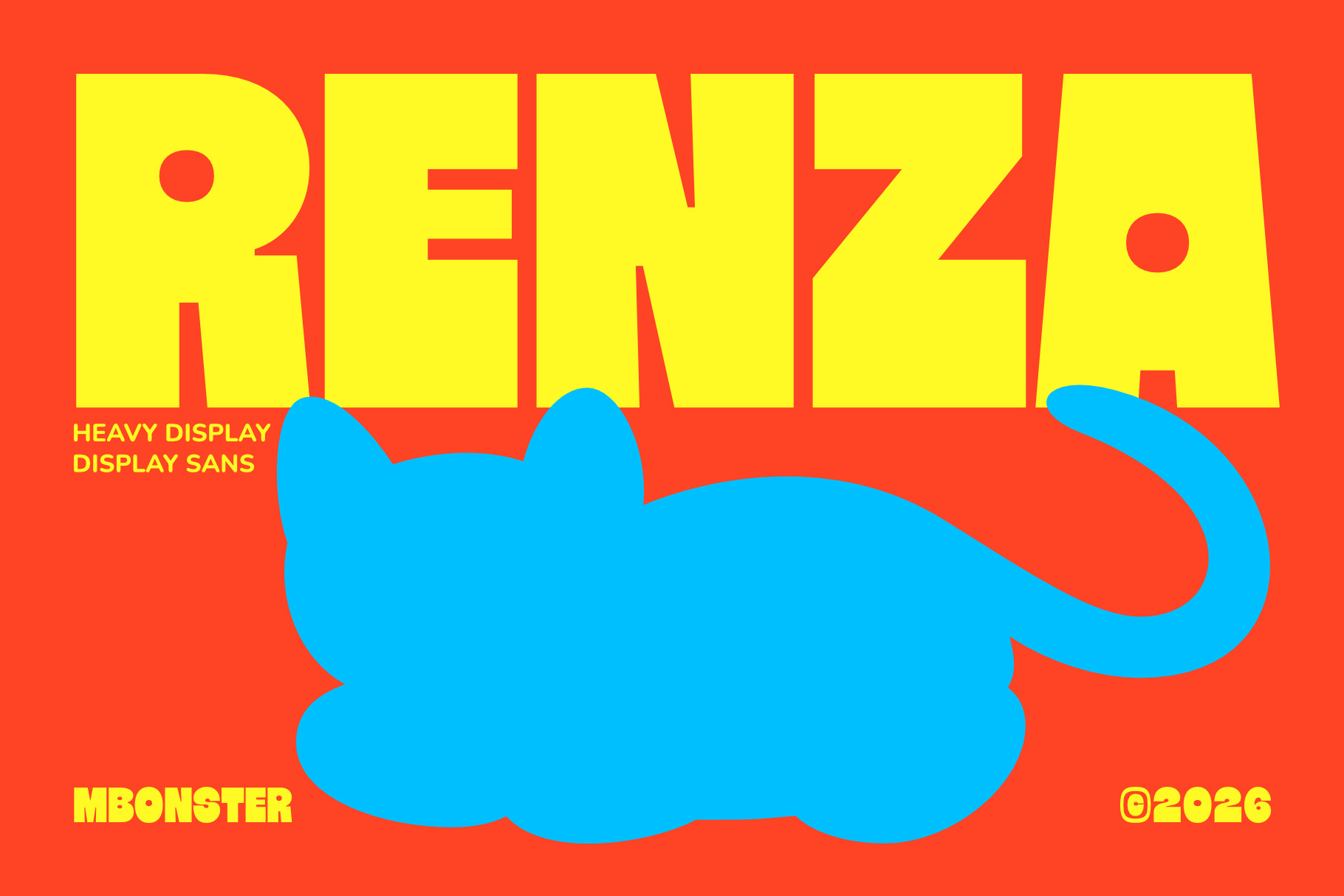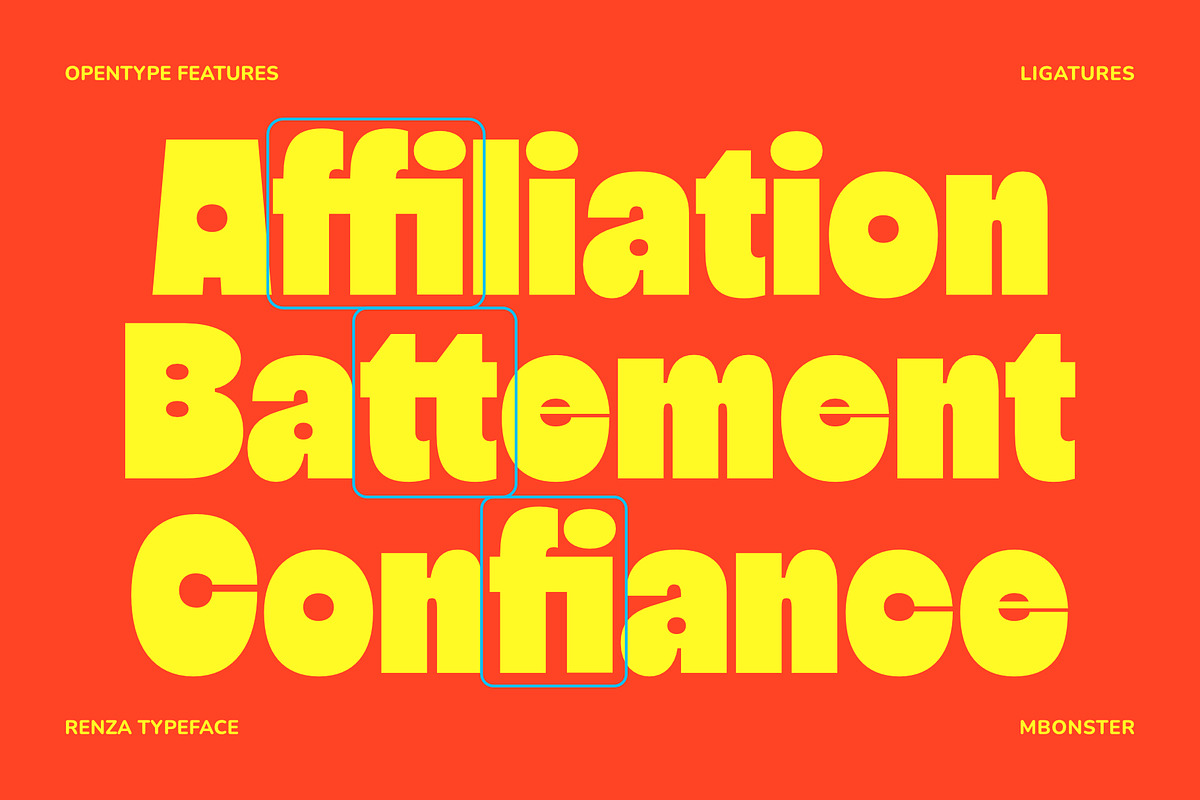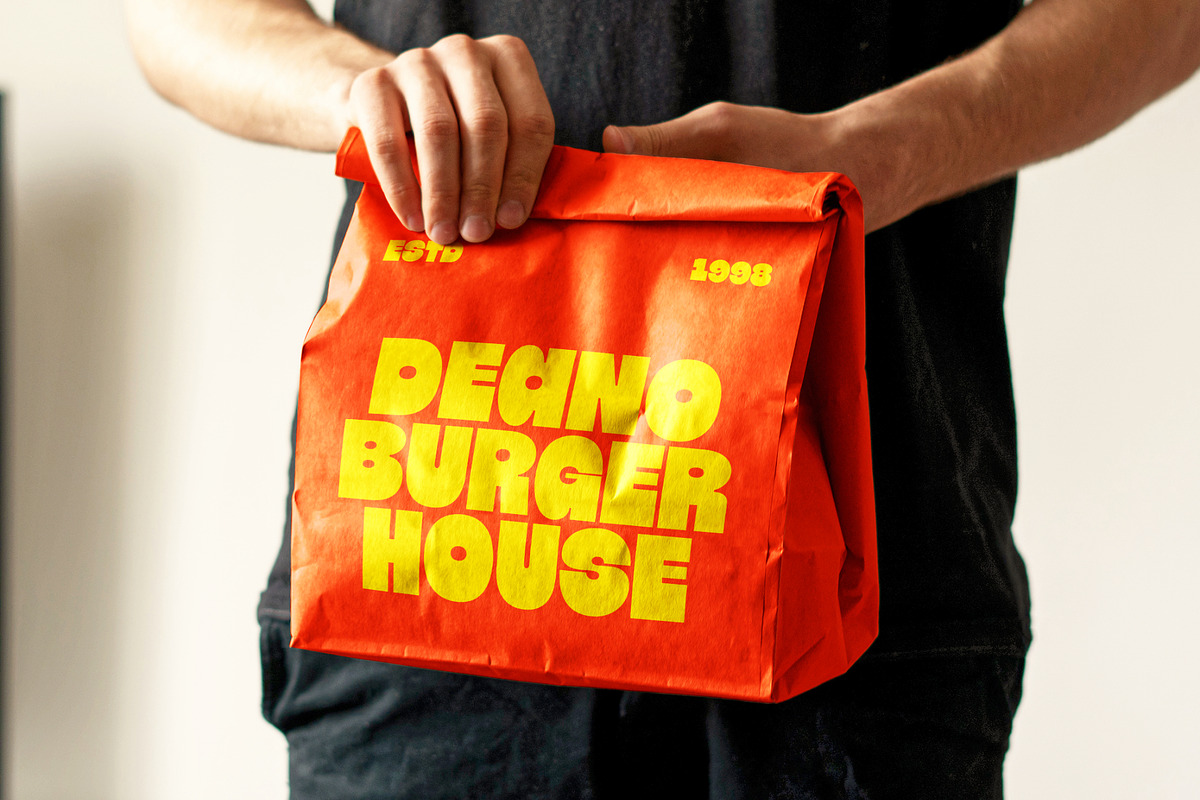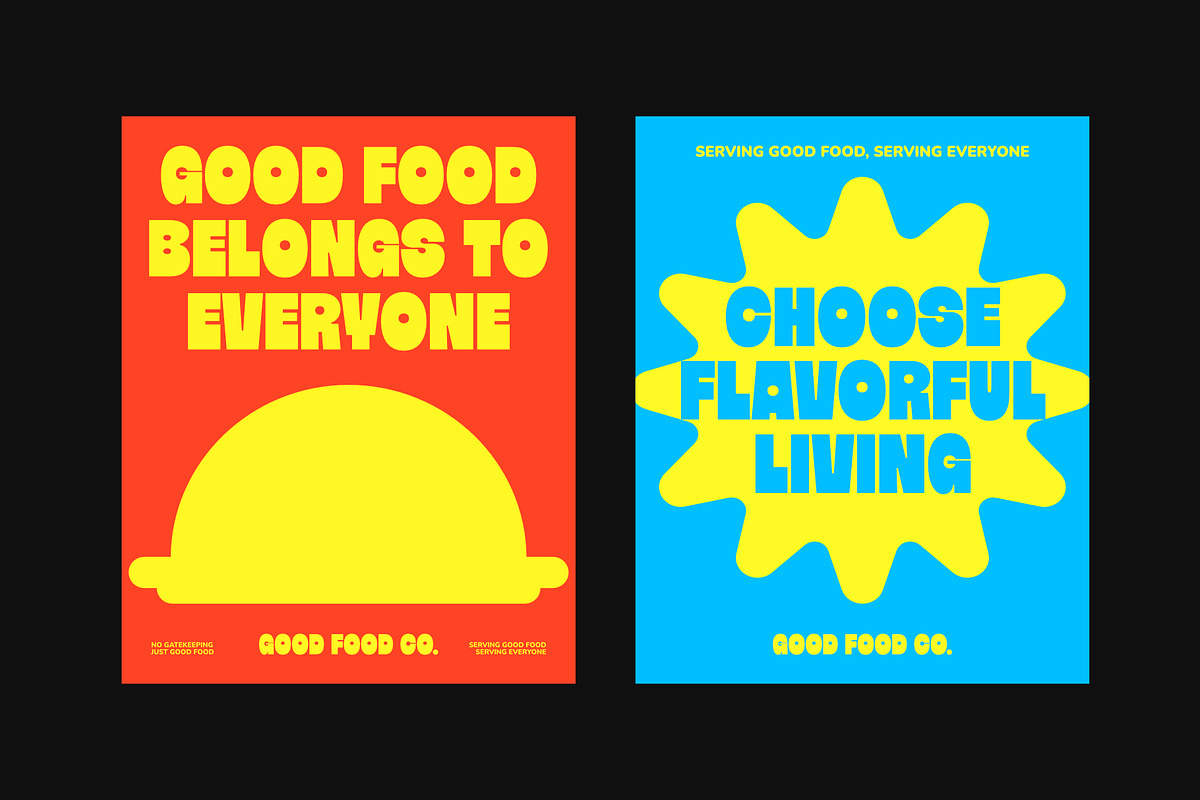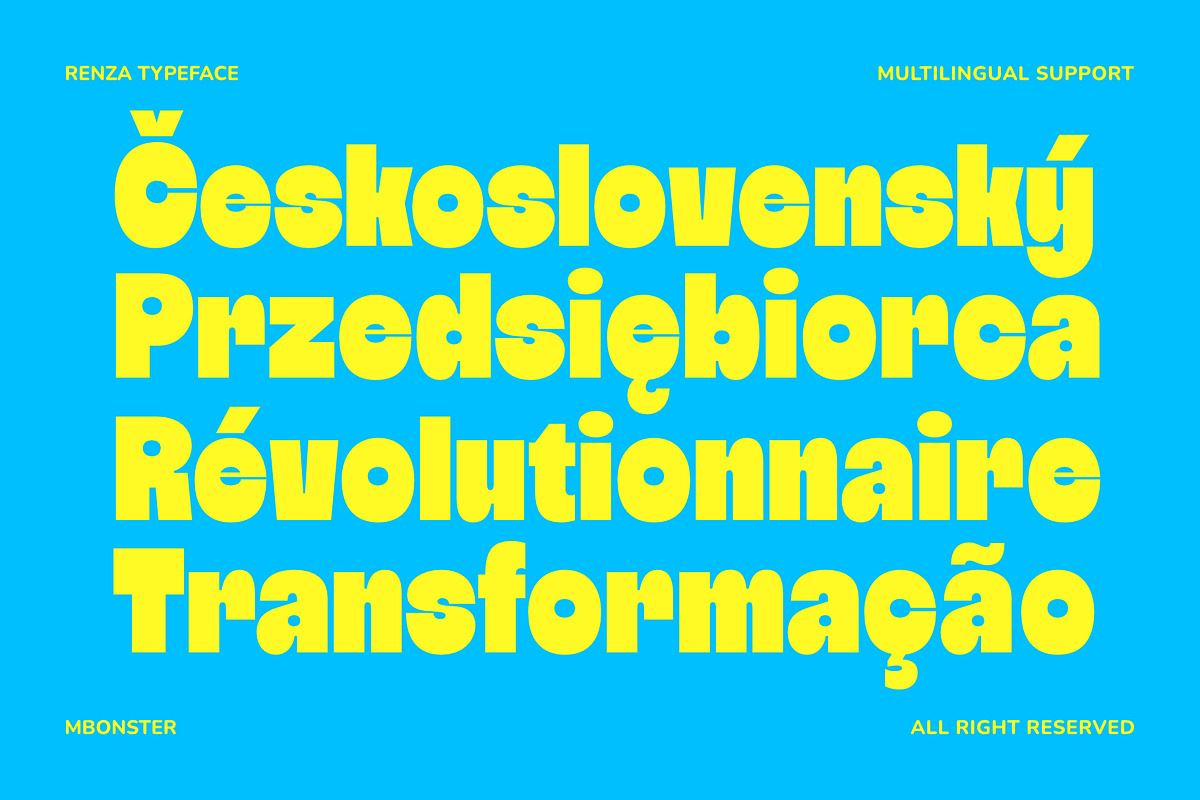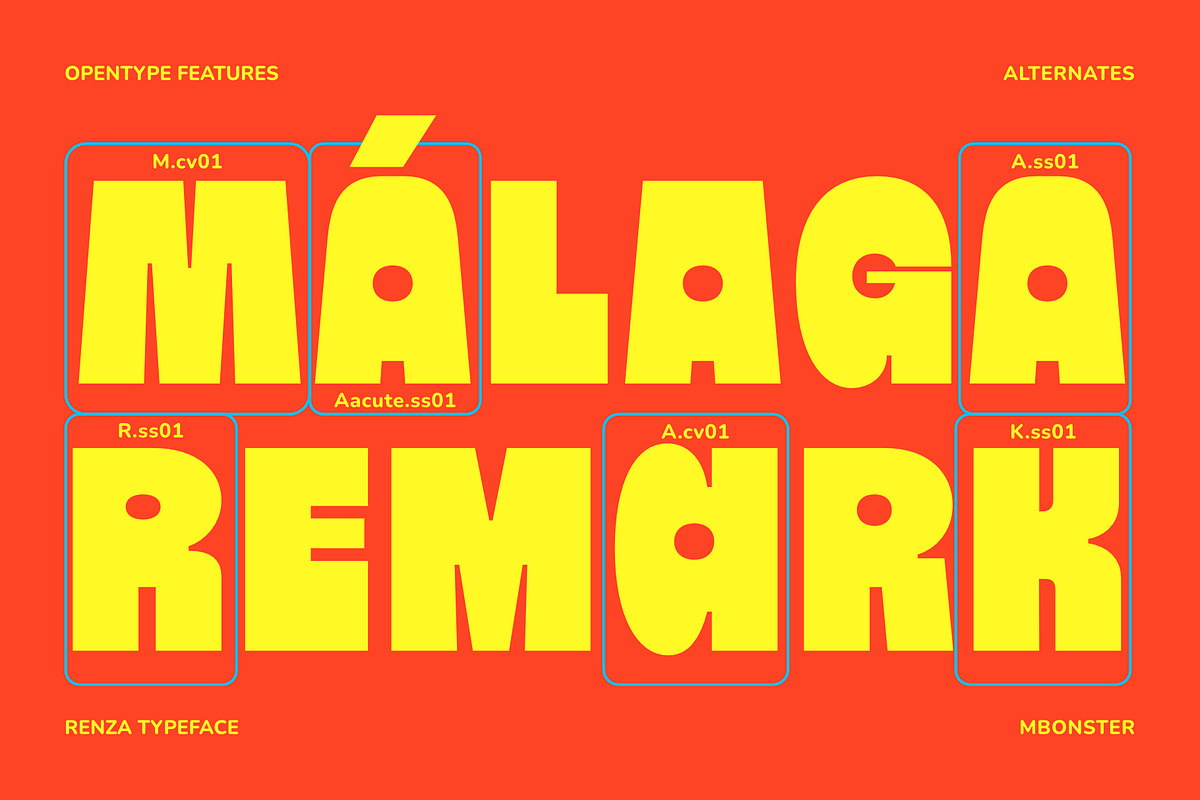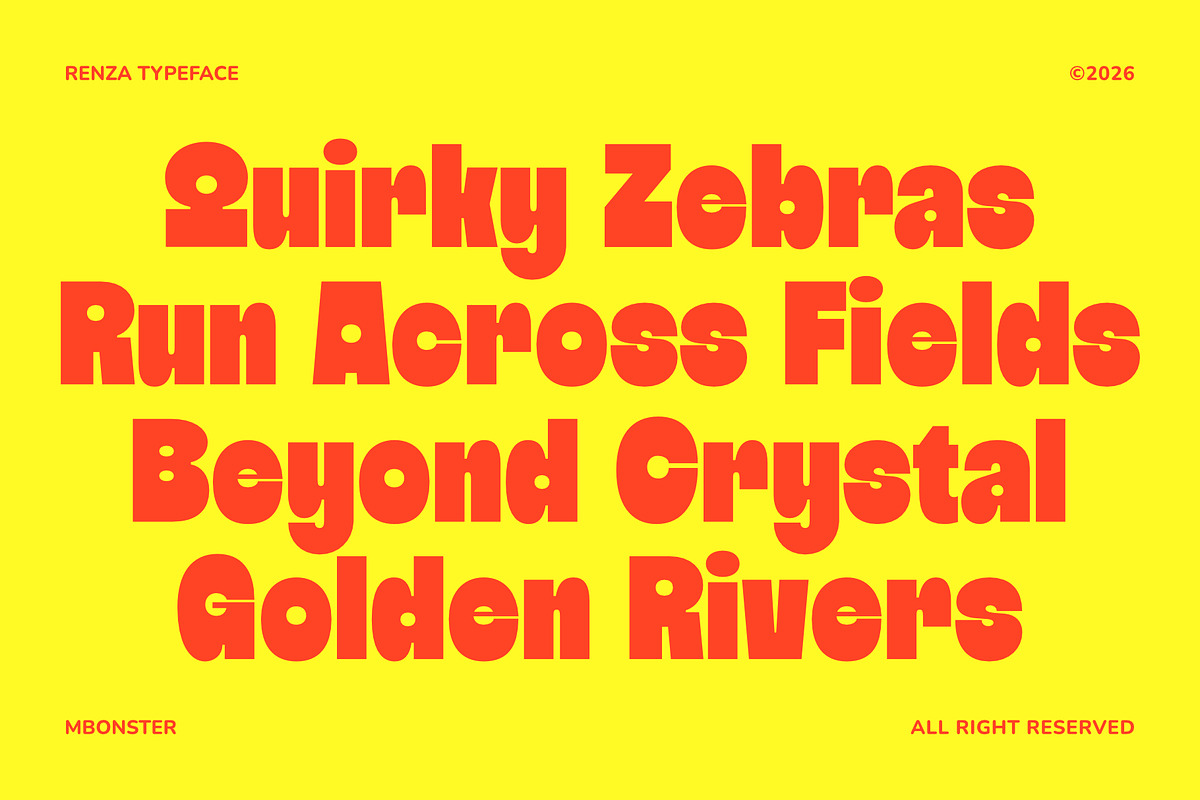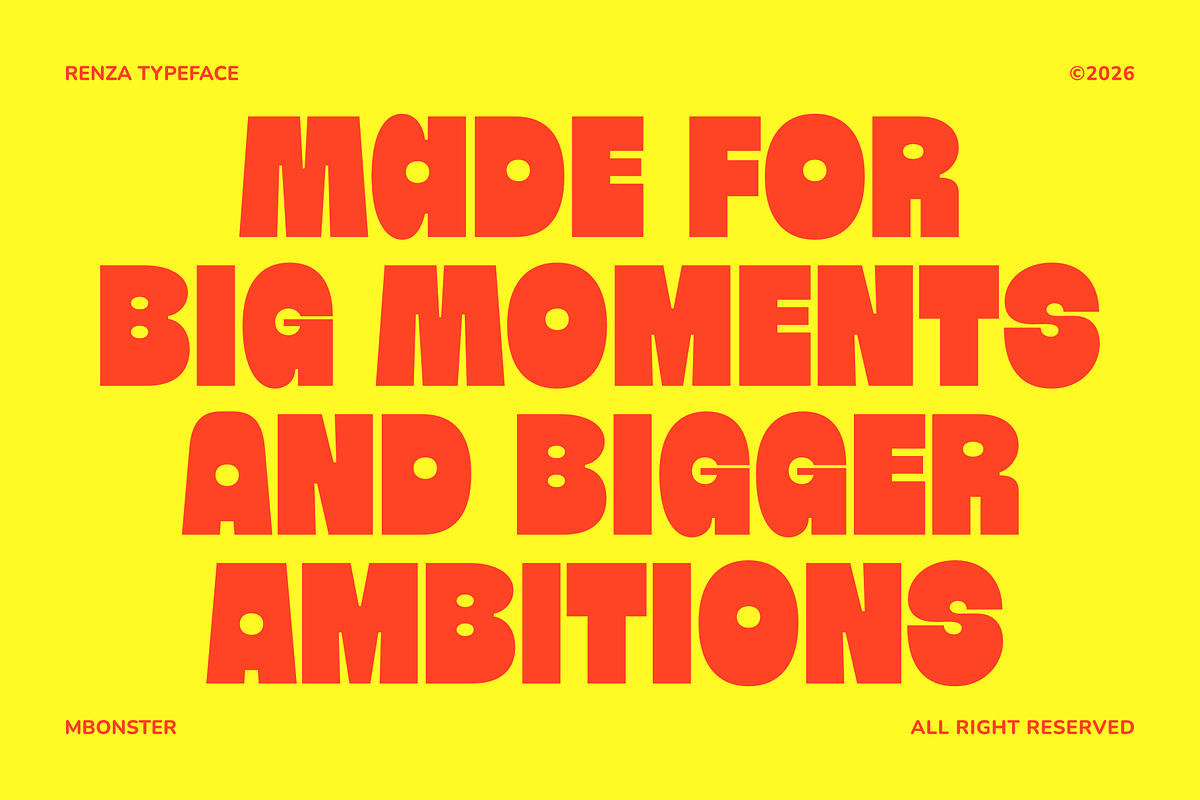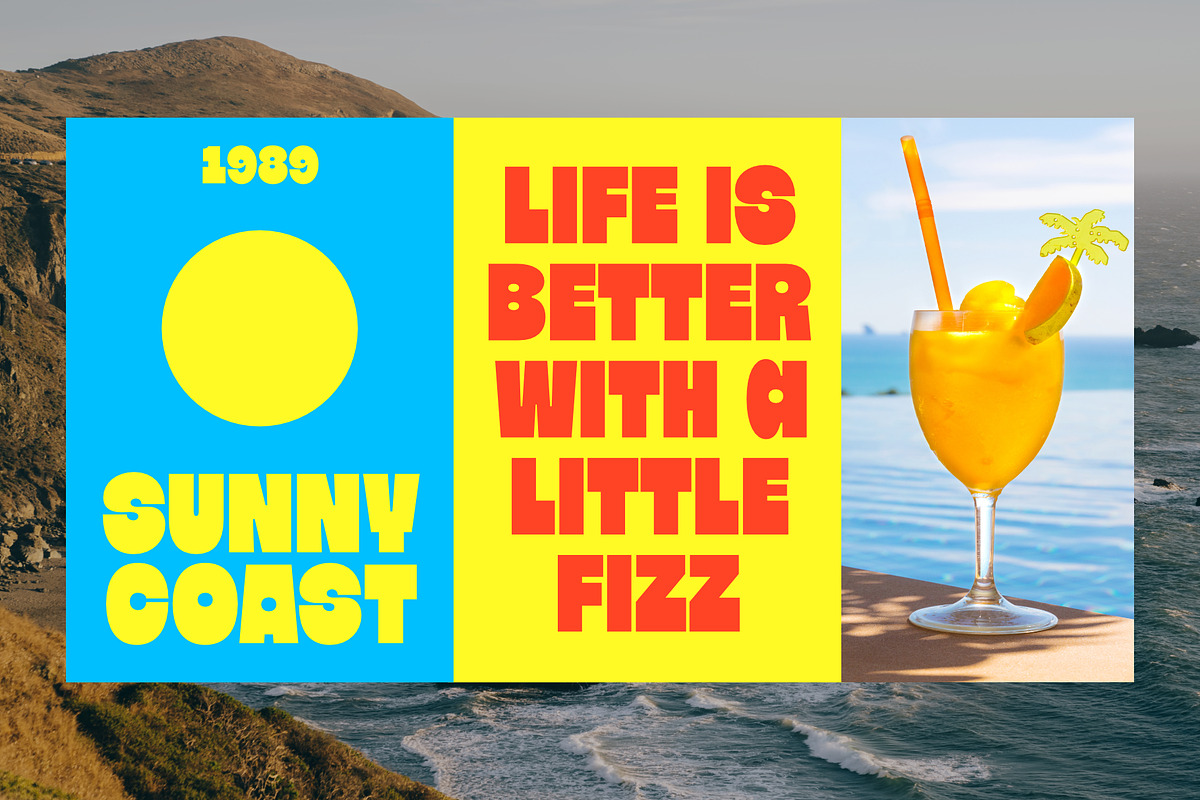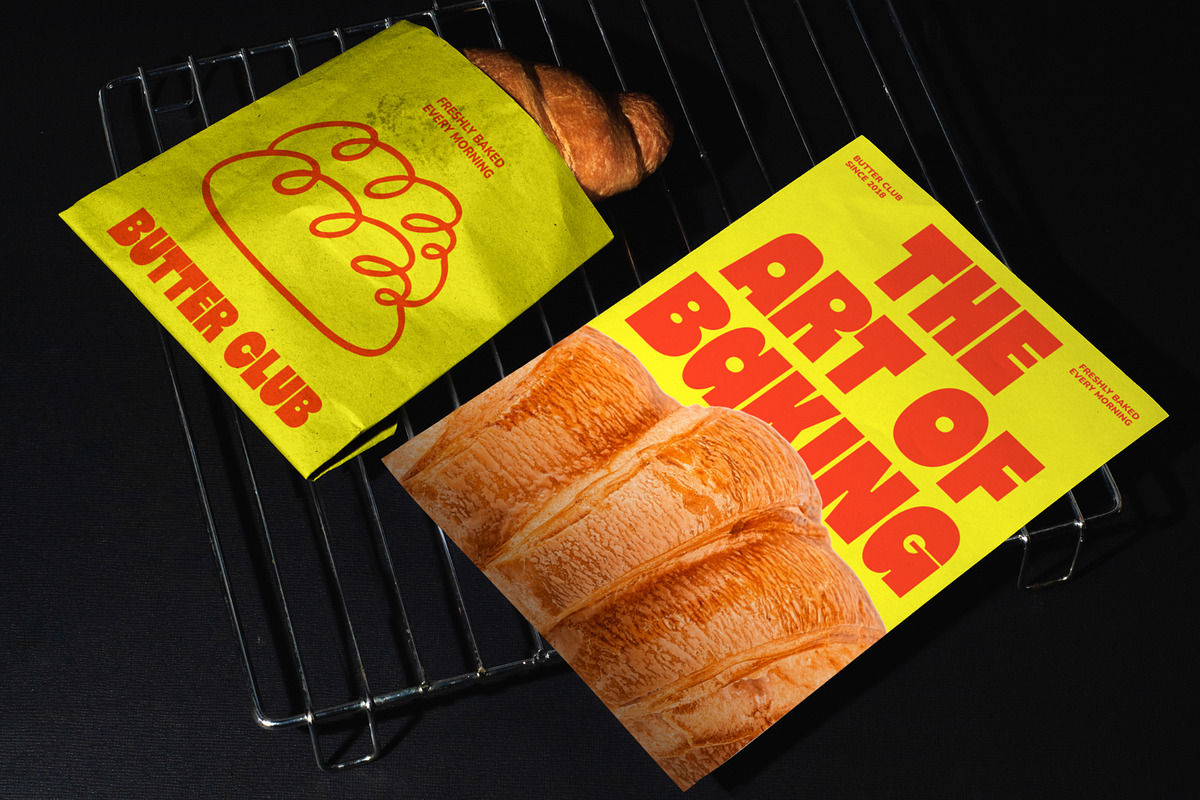
Renza - Bold Heavy Display Font
Renza — Chunky Retro Display Charm Renza – Fun & Chunky Display Typeface is a bold display typeface with playful curves and retro-inspired charm. It suits food branding, packaging, logos, posters, and standout headlines where the typography needs to feel confident, cheerful, and easy to remember.
Renza brings a fun and energetic personality to design work without losing clarity. OpenType features and PUA encoding are included, so alternate characters remain easy to access across a wide range of design applications. Use it for projects that call for a strong, cheerful, and memorable look.